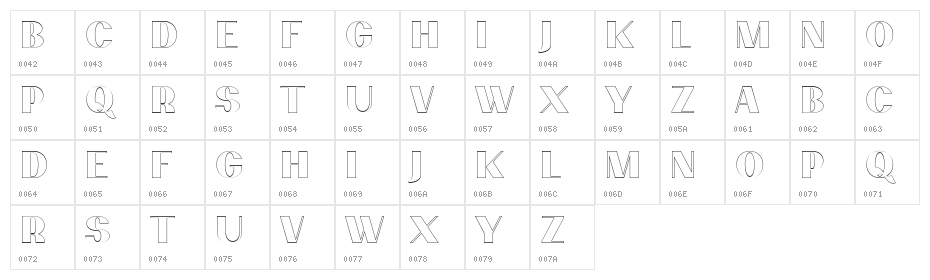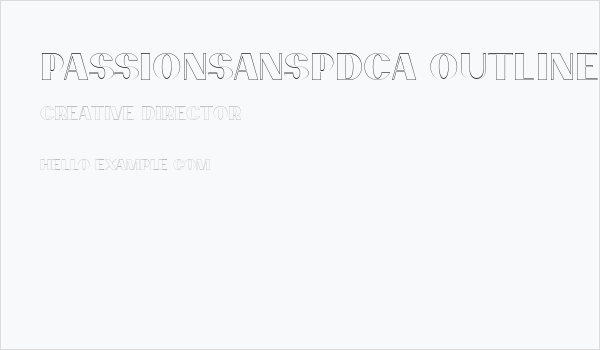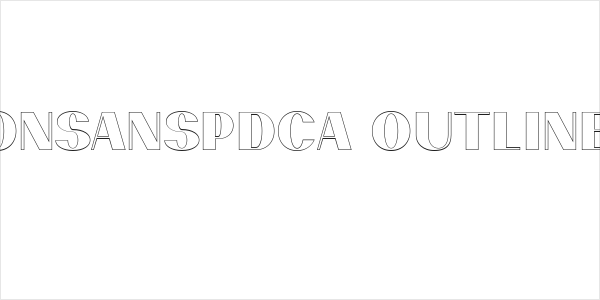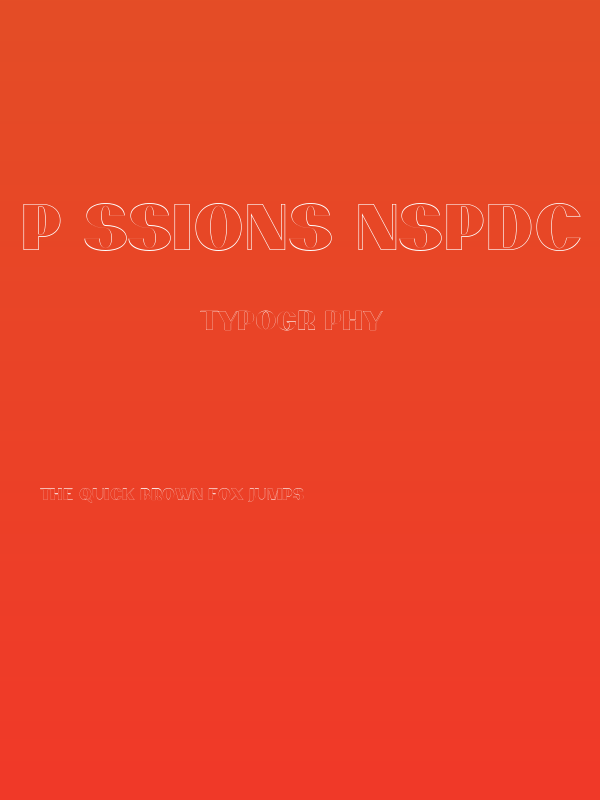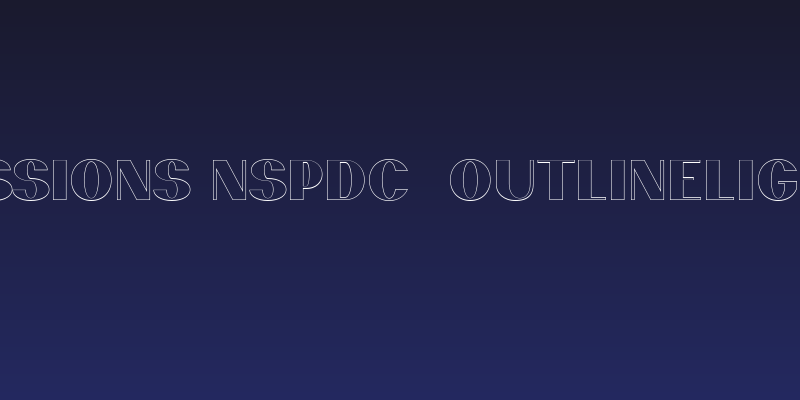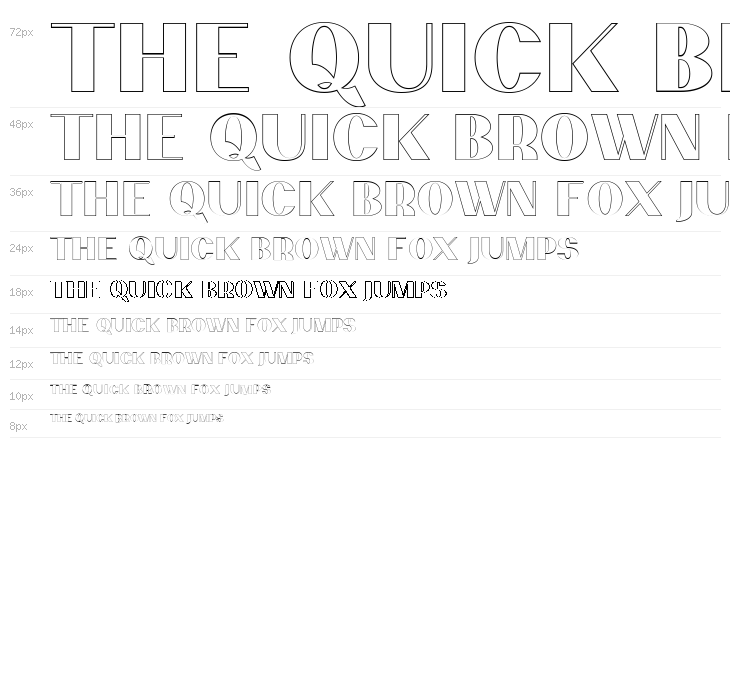
PassionSansPDca-OutlineLight Font
PassionSansPDca-OutlineLight Description
This font features a clean, geometric outline style that emphasizes modernity and simplicity. The characters are constructed with precise, even strokes that form a hollow interior, creating a sense of openness and lightness. The uppercase letters are uniform in height, contributing to a balanced and harmonious appearance. The design is minimalistic, with straight lines and subtle curves that enhance readability while maintaining an elegant aesthetic. This font is versatile, suitable for various design applications where a contemporary and airy feel is desired.
| Proposed Projects | Ideal for branding, headlines, posters, and digital media where a modern and airy aesthetic is desired. |